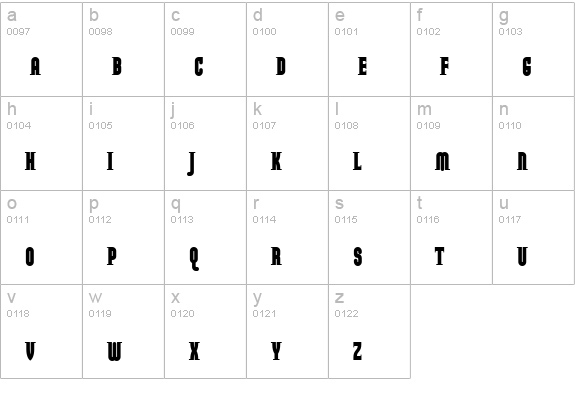
ModulaRoundSerifSmallCaps-Black Font Details
ModulaRoundSerifSmallCaps-Black is a maximum-weight, dramatic variant in the ModulaRoundSerifSmallCaps typeface family \xE2\x80\x94 well suited to maximum-impact headlines, posters, and packaging.
ModulaRoundSerifSmallCaps-Black font is a stylish and modern typeface that exudes elegance and sophistication. With its unique combination of rounded serifs and small caps, this font is perfect for creating eye-catching designs that demand attention. The bold weight of the font makes it ideal for headlines, titles, and logos, adding a touch of authority and impact to any project. And the best part? ModulaRoundSerifSmallCaps-Black font is available for free download at FontsMarket.com! This means you can easily access this high-quality font without breaking the bank. Whether you're a graphic designer, a web developer, or just someone looking to spruce up their documents, ModulaRoundSerifSmallCaps-Black font is a versatile and reliable choice that won't disappoint. Download it today and elevate your designs to the next level!